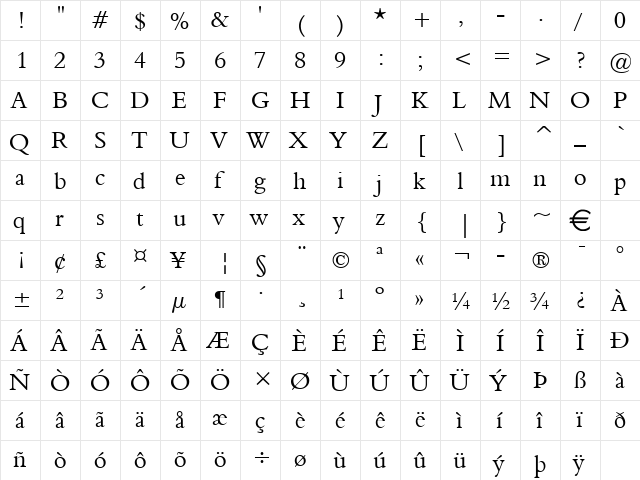
Naline Normal
Design Context for Naline Typeface
Naline offers clean, dependable letterforms without strong stylistic allegiance, making it a practical choice for designers who need flexibility.